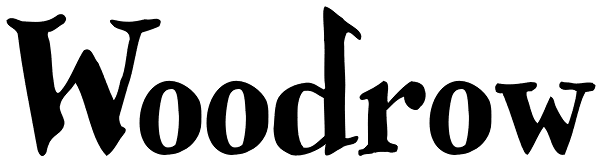
Woodrow
If Mister Frisky is a bit too kooky for your project, try Woodrow. The big floppy serifs and hand-drawn strokes give this font very "Chanky" characteristics. Woodrow is bold, bouncy, fun and legible like Mister Frisky, but it is also a little more...